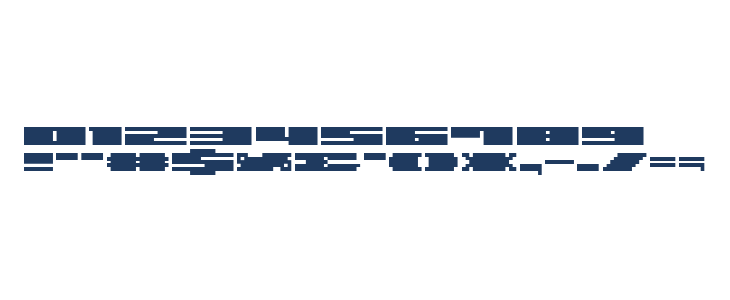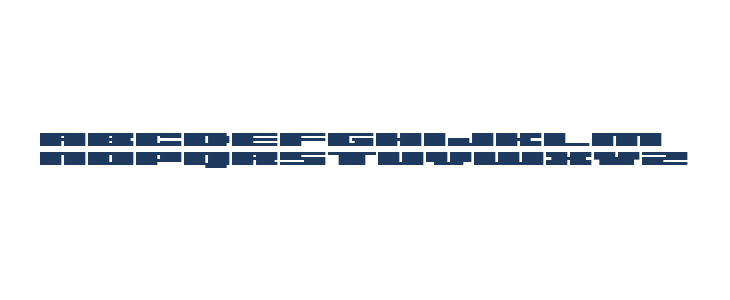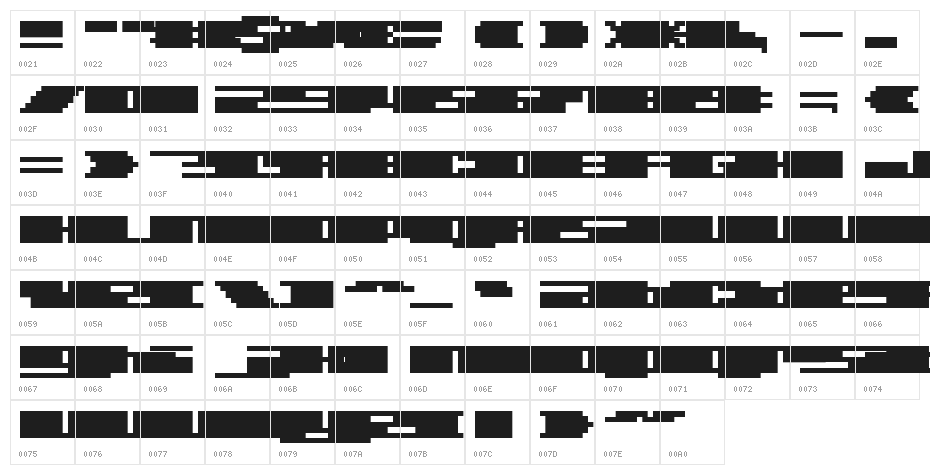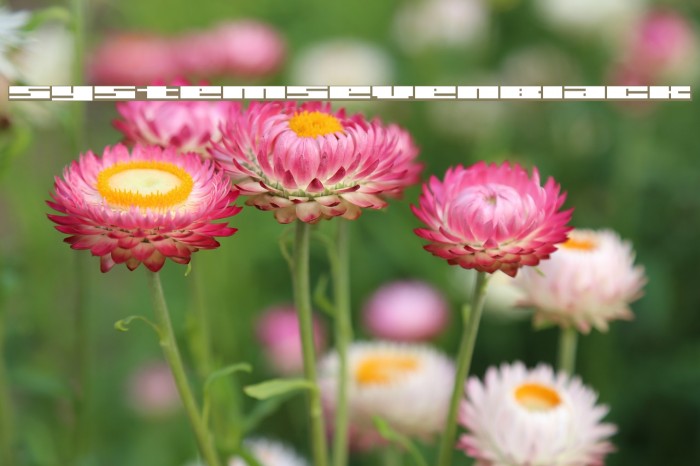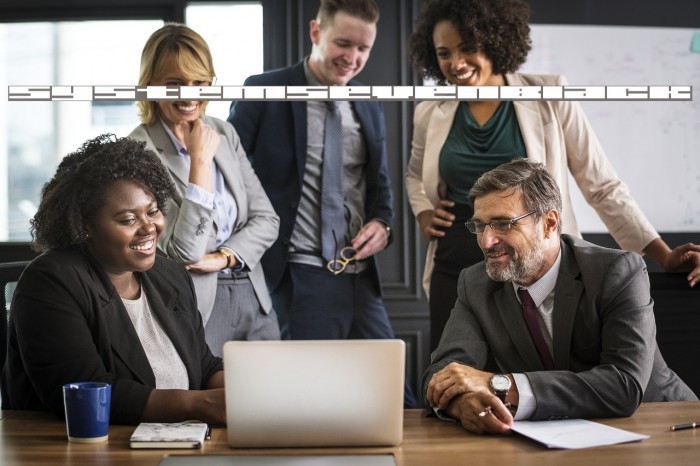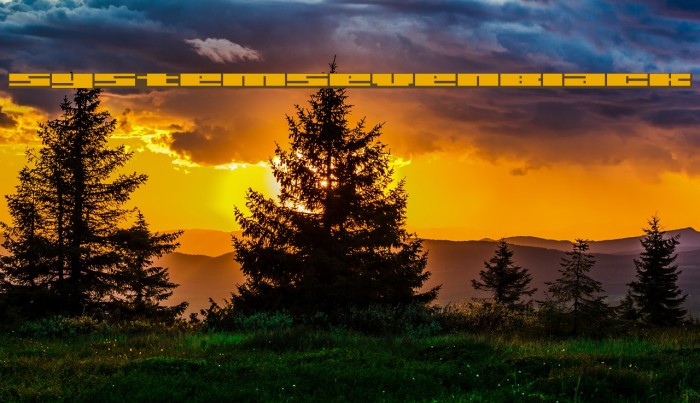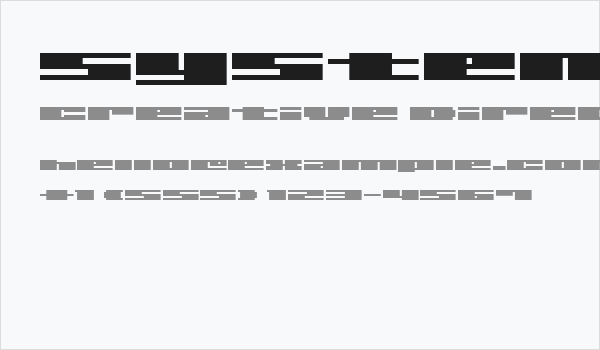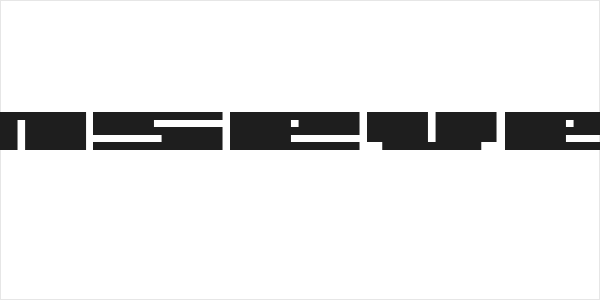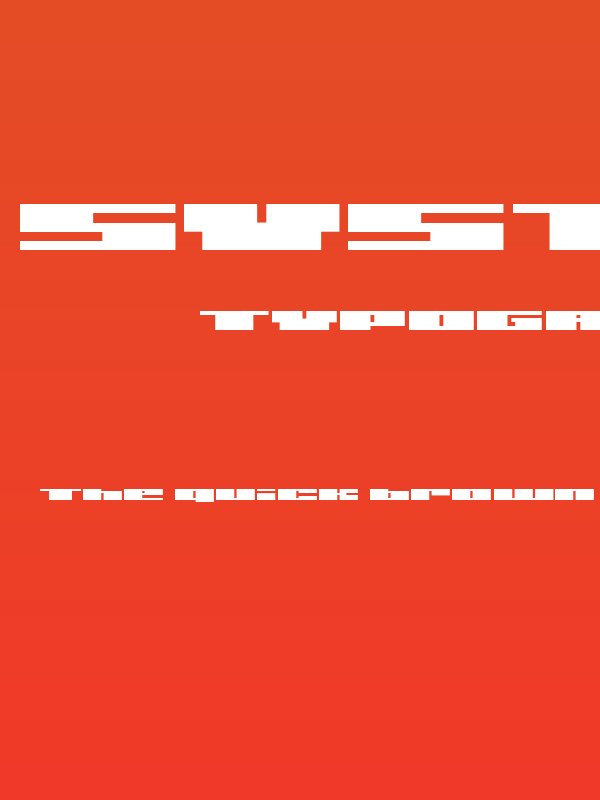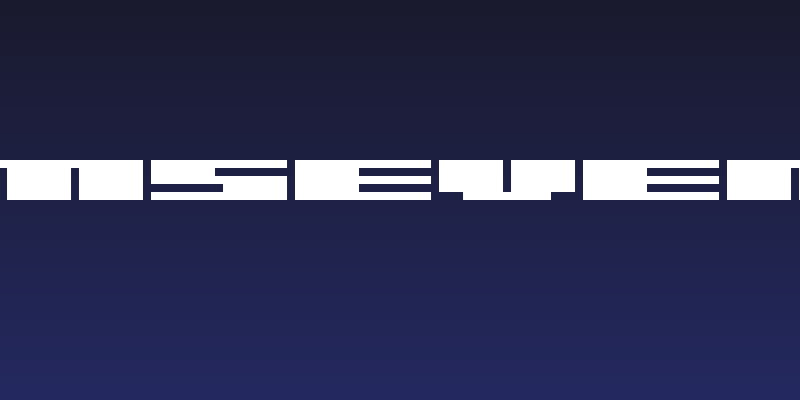
SystemSevenBlack Font
SystemSevenBlack Description
This font features a bold and geometric design with a futuristic and digital aesthetic. The characters are constructed with a blocky, pixelated style, giving them a distinct, tech-inspired look. The uppercase and lowercase letters maintain a consistent height, creating a uniform appearance across the text. The numbers and special characters follow the same design principles, ensuring a cohesive look. The font's thick strokes and angular shapes make it highly legible, even at smaller sizes, while its unique style adds a modern edge to any project.
| Proposed Projects | Ideal for tech-related designs, video game graphics, digital art, and modern branding projects. |